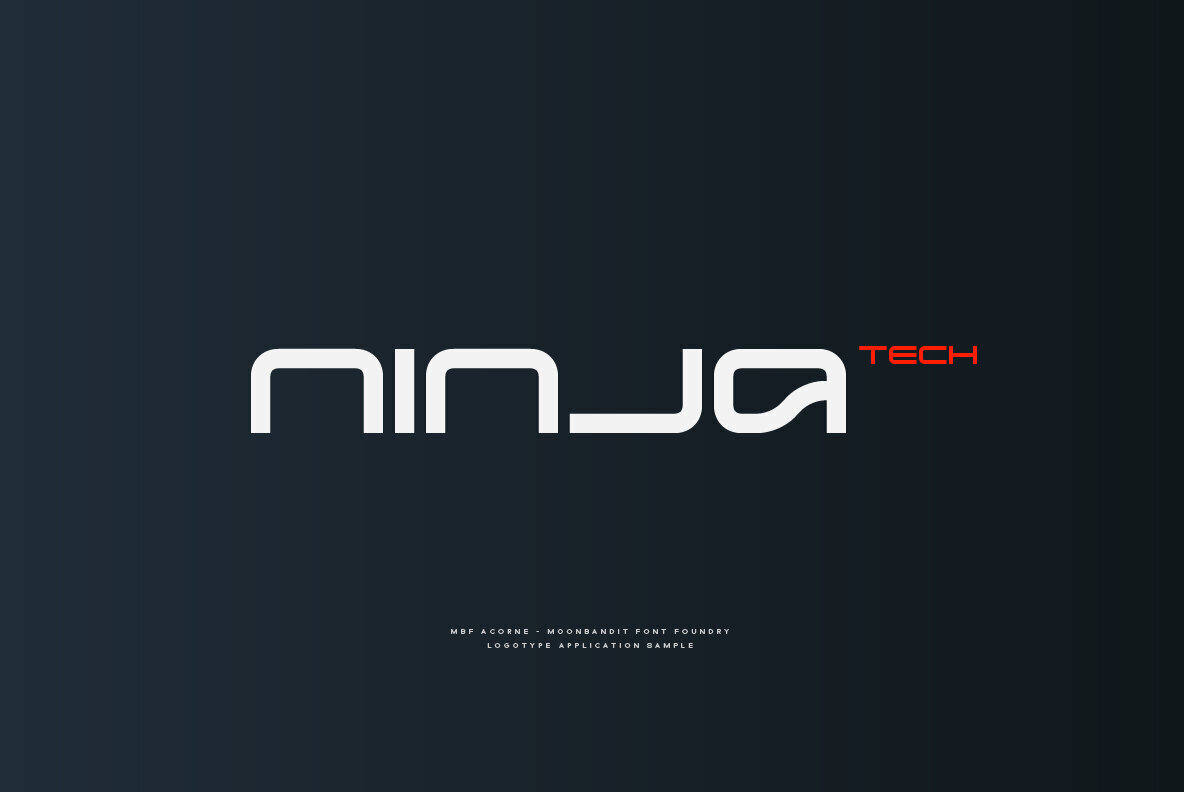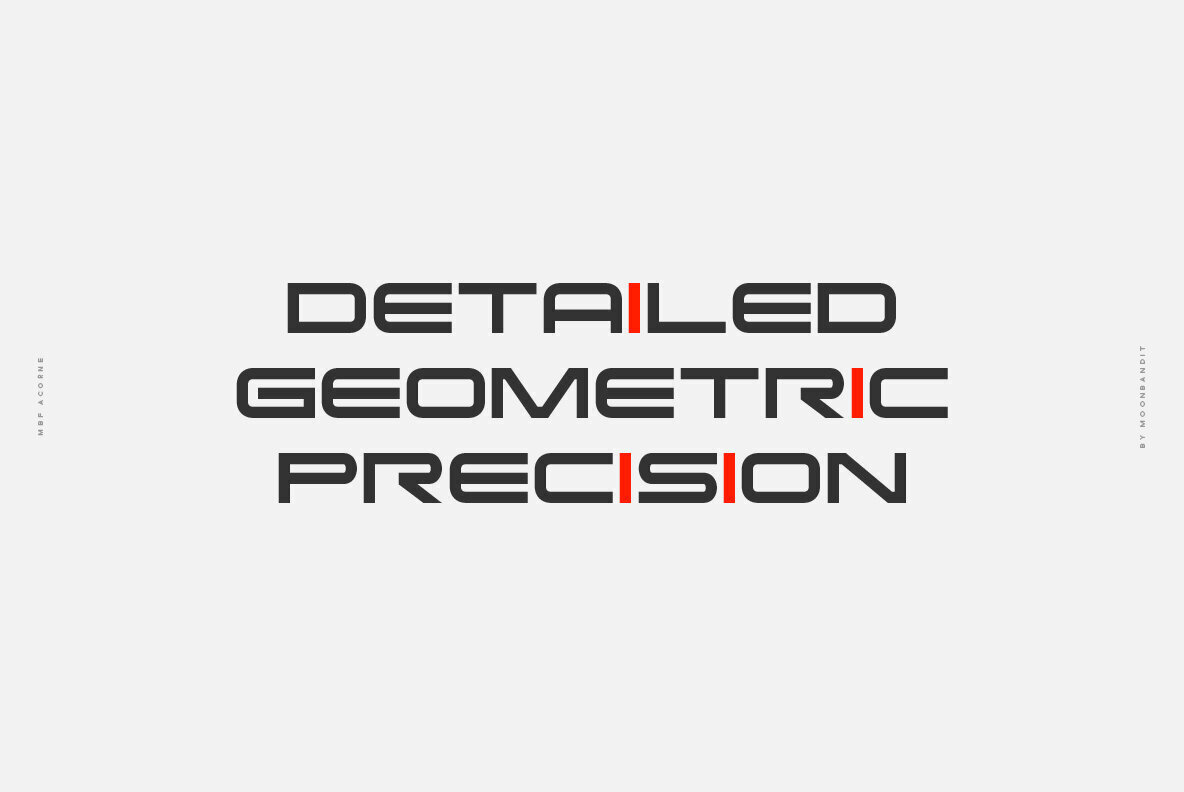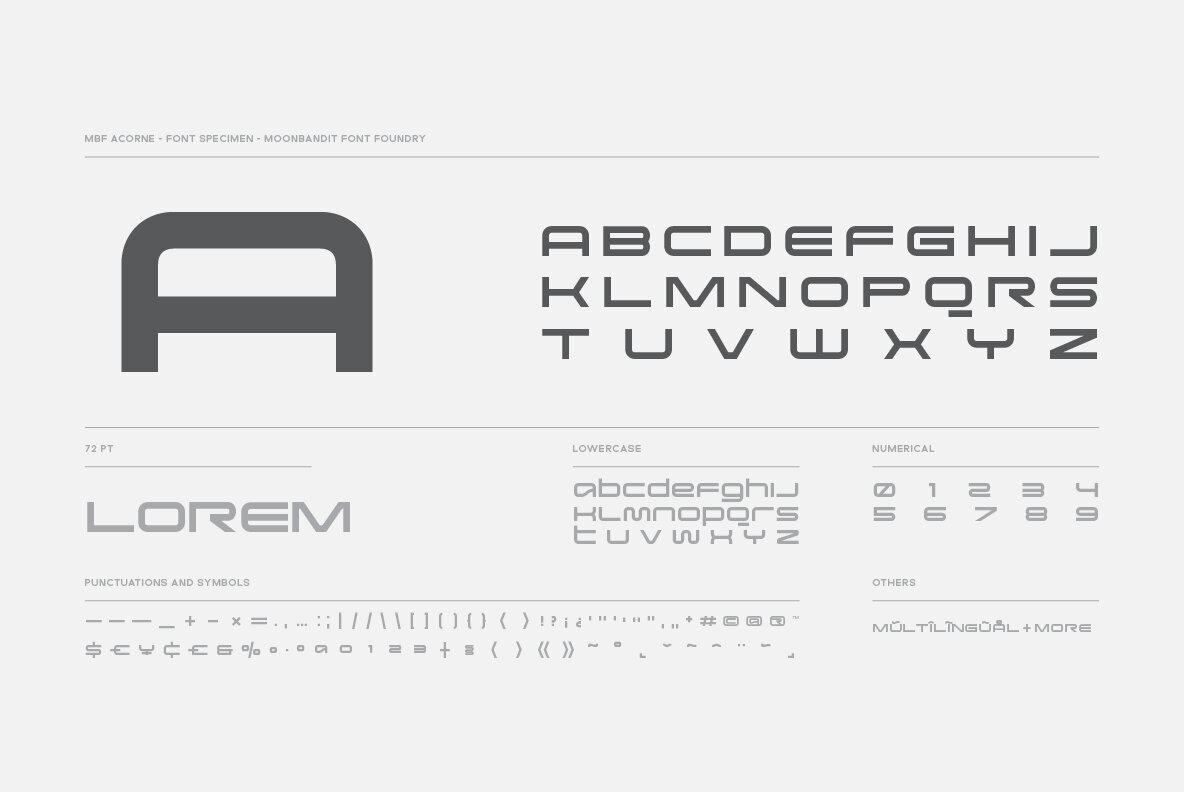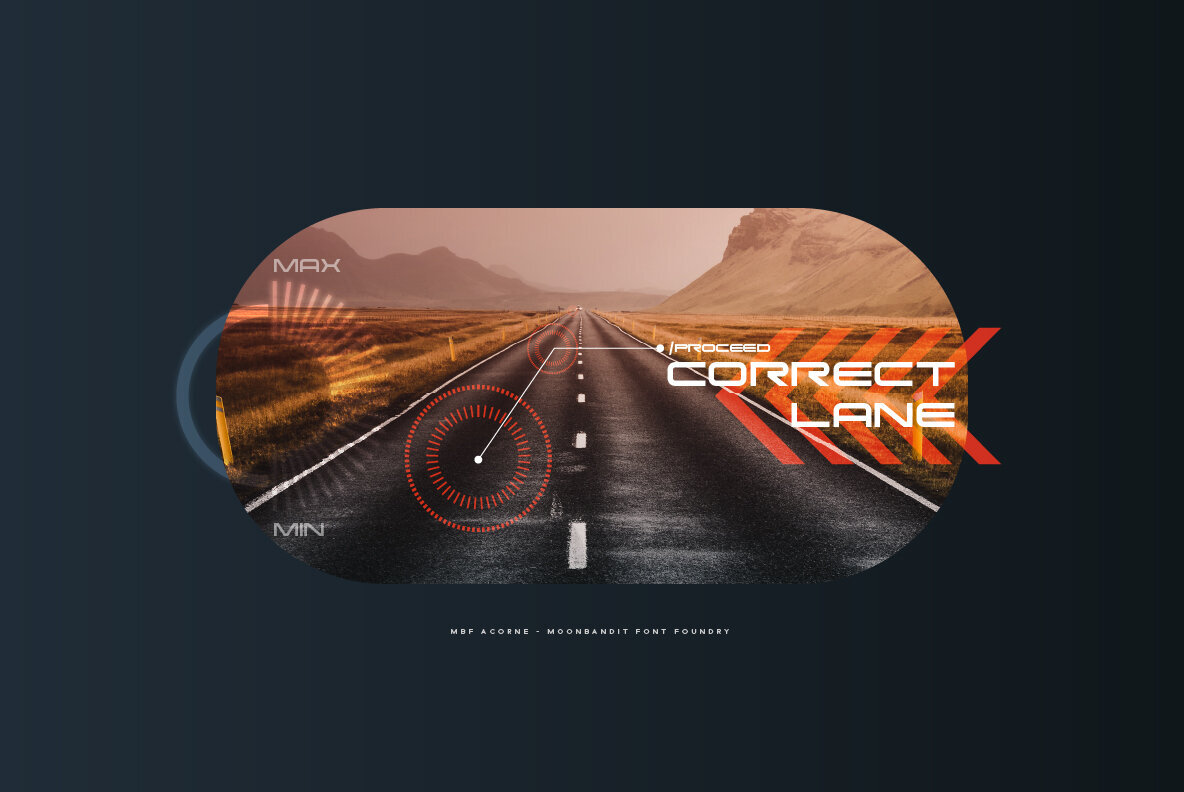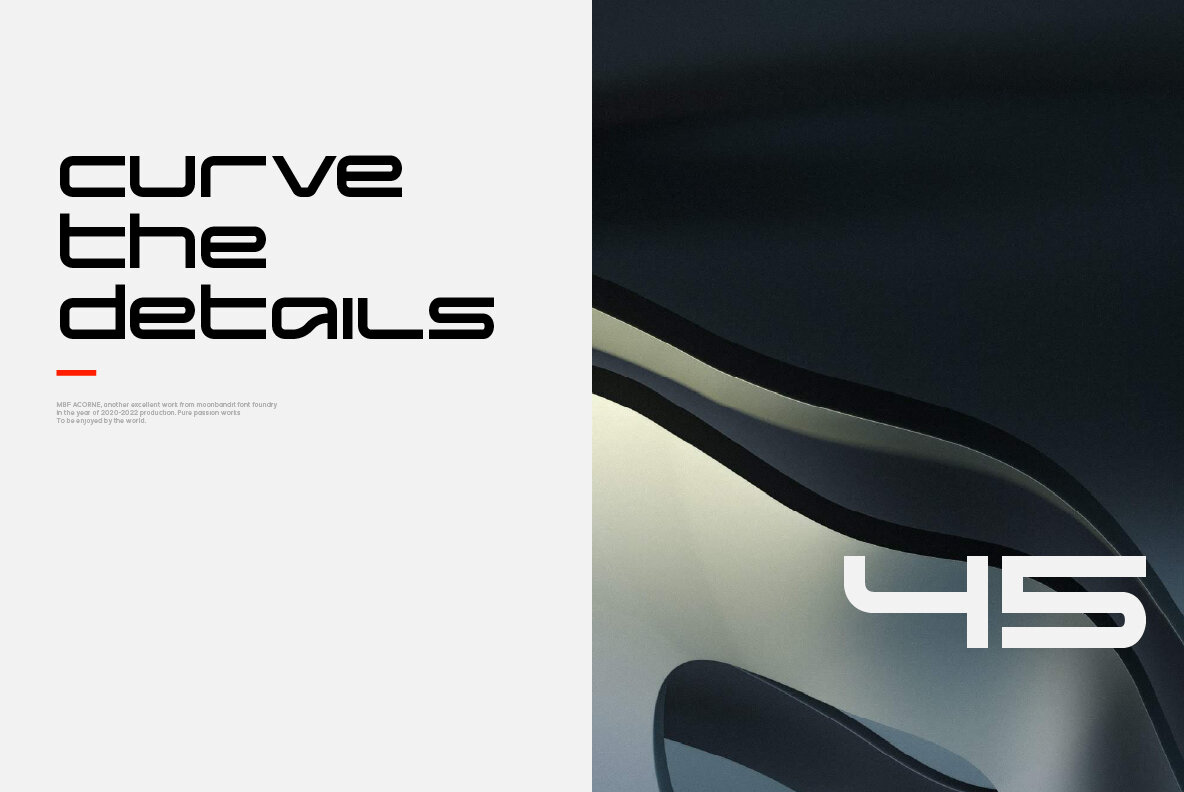
MBF Acorne
Acorne is a wide geometric sans serif display font. A beautiful combination of rounded and straight sharp edge. This modern minimalist typeface design can be used for any theme. Perfect usage includes logo, poster, display, headline, t-shirt design and many more.